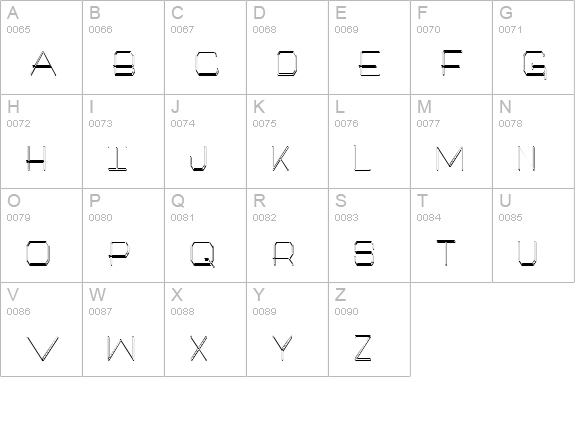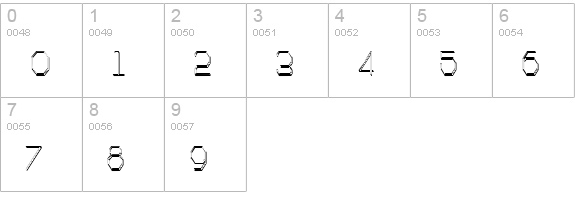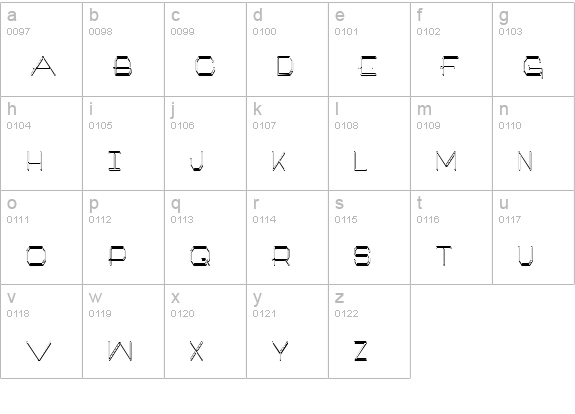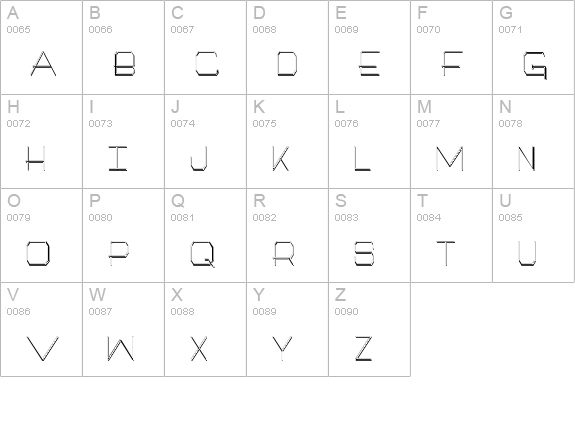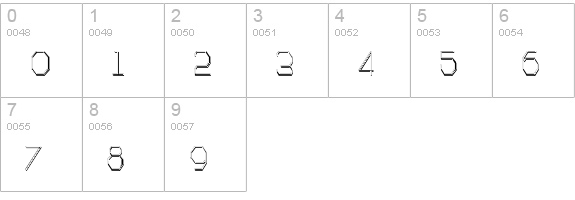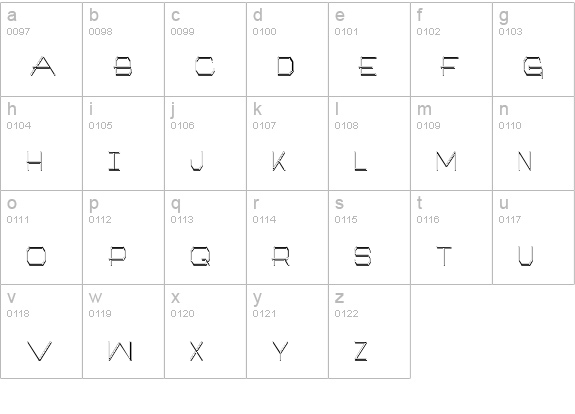
Artlook 3-D Narrower font is a stunning display typeface that adds a touch of modernity and sophistication to any design project. With its sleek and contemporary 3-D effect, this font is perfect for creating eye-catching headlines, titles, and logos. The narrow letterforms give it a unique and elegant appearance that will surely make your designs stand out. Best of all, Artlook 3-D Narrower font is completely free to download at FontsMarket.com. Whether you're a graphic designer, web developer, or just a typography enthusiast, you can easily access this font and use it in your projects without any cost. Don't miss out on this amazing opportunity to enhance your designs with the beauty and style of Artlook 3-D Narrower font. Download it now and start creating stunning visuals that will leave a lasting impression!